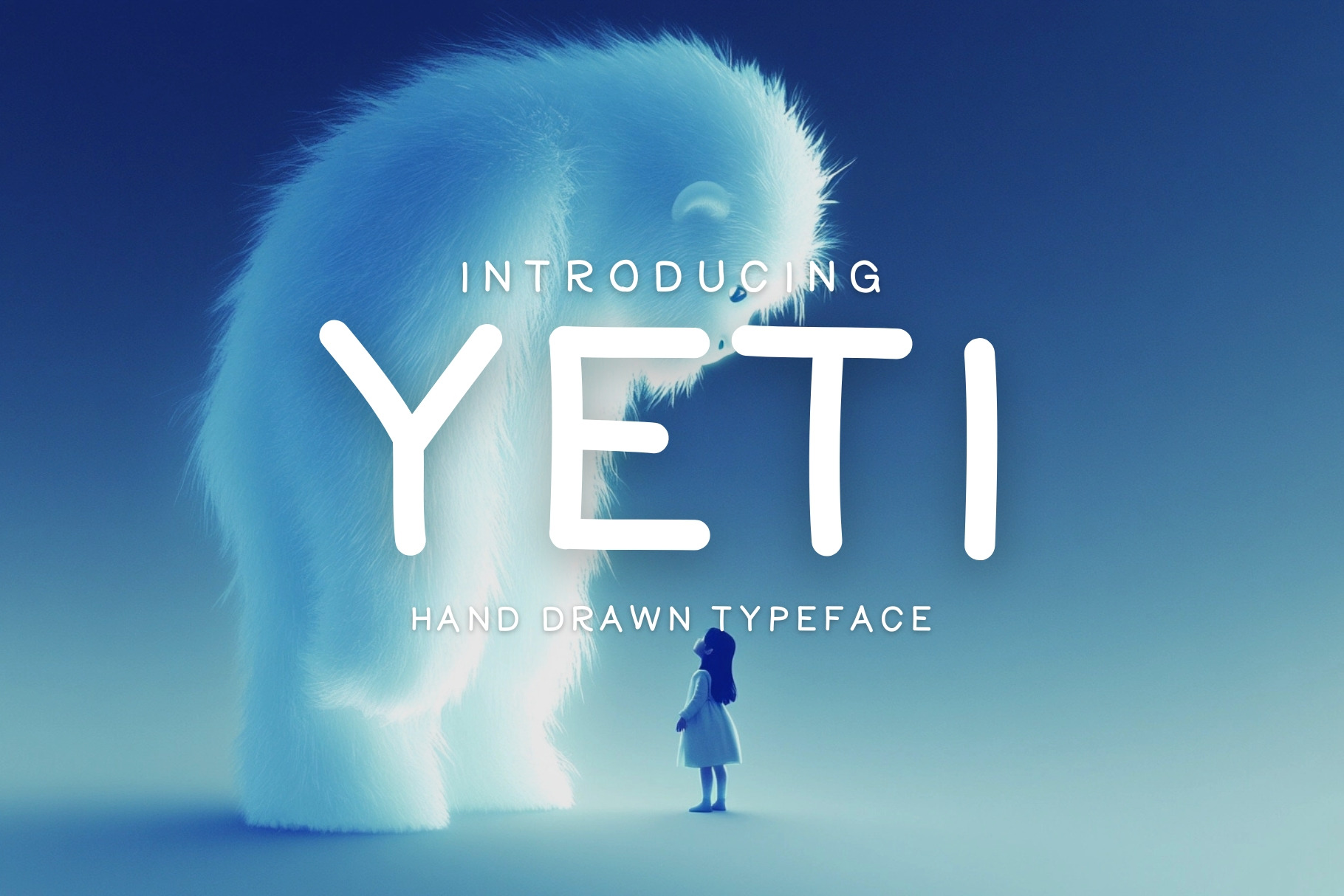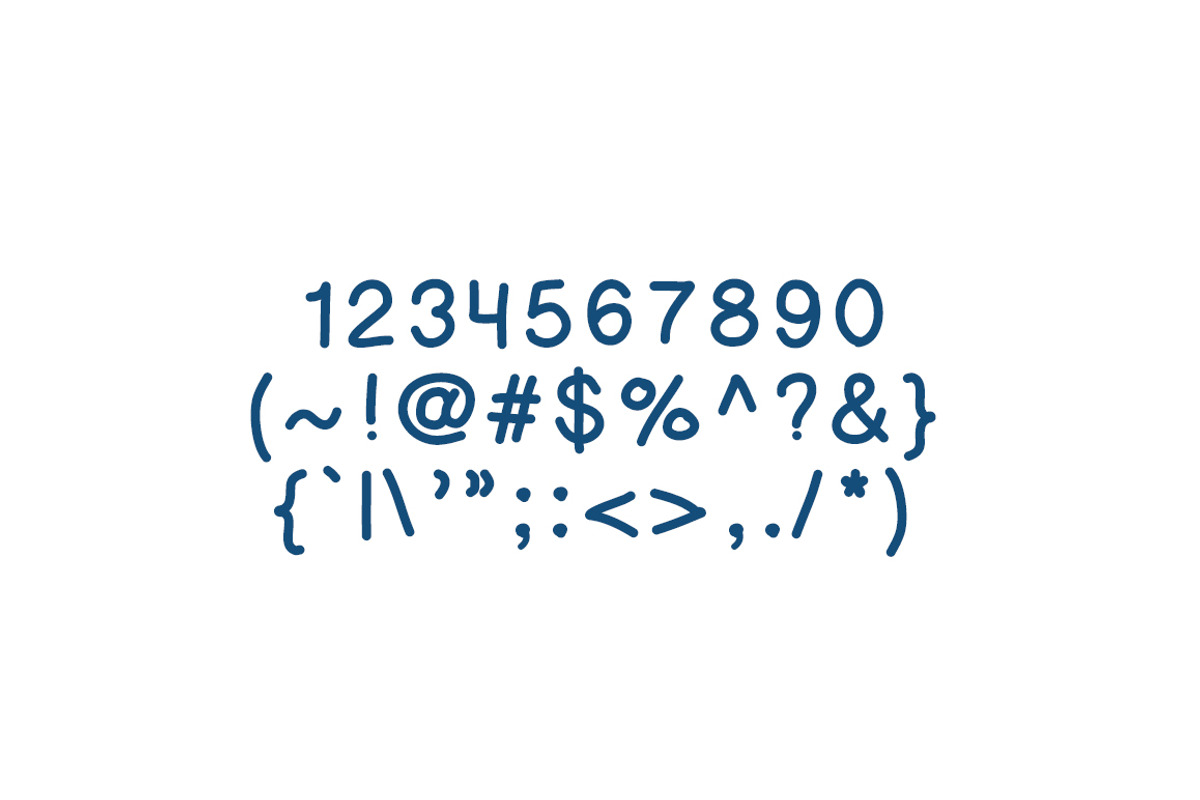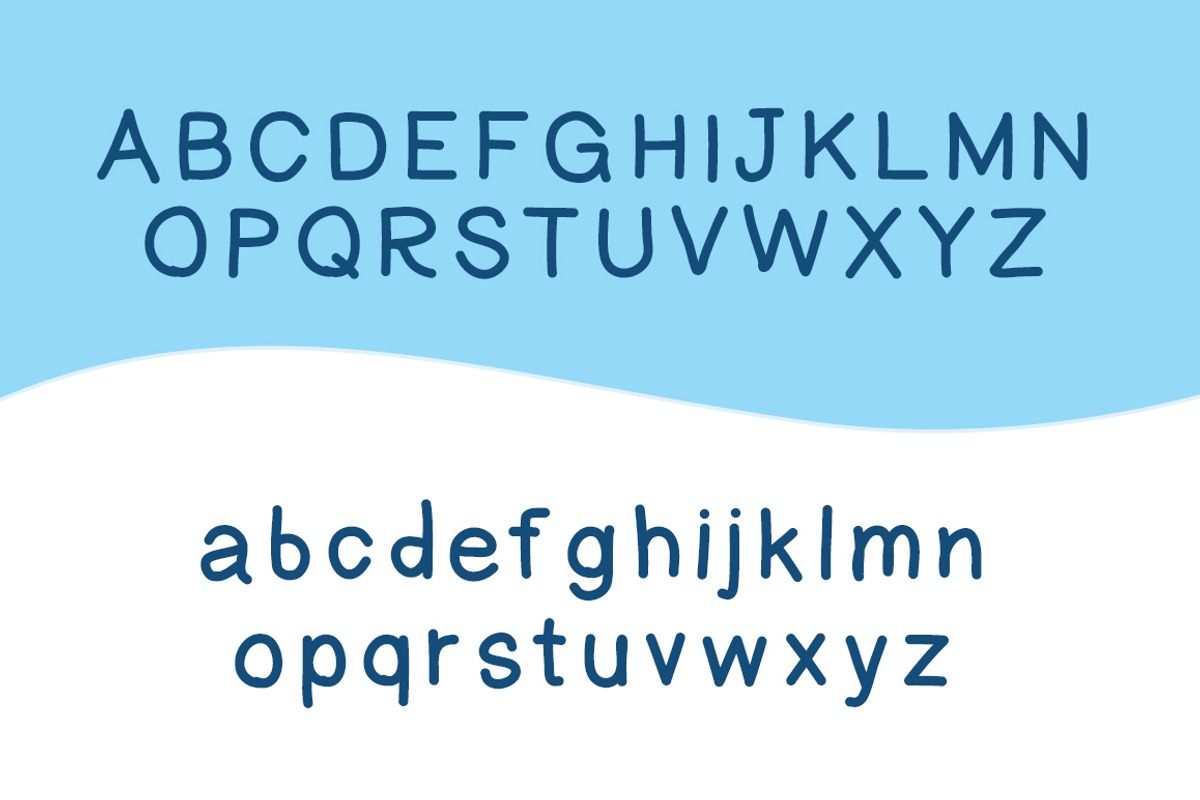
Yeti - Hand Drawn Font
Yeti is a playful font that's very easy to read. It's ideal for children's books and posters. It comes with upper and lower case letters and a whole bunch of diacritics.
Add a dash of happiness to any project with Yeti!